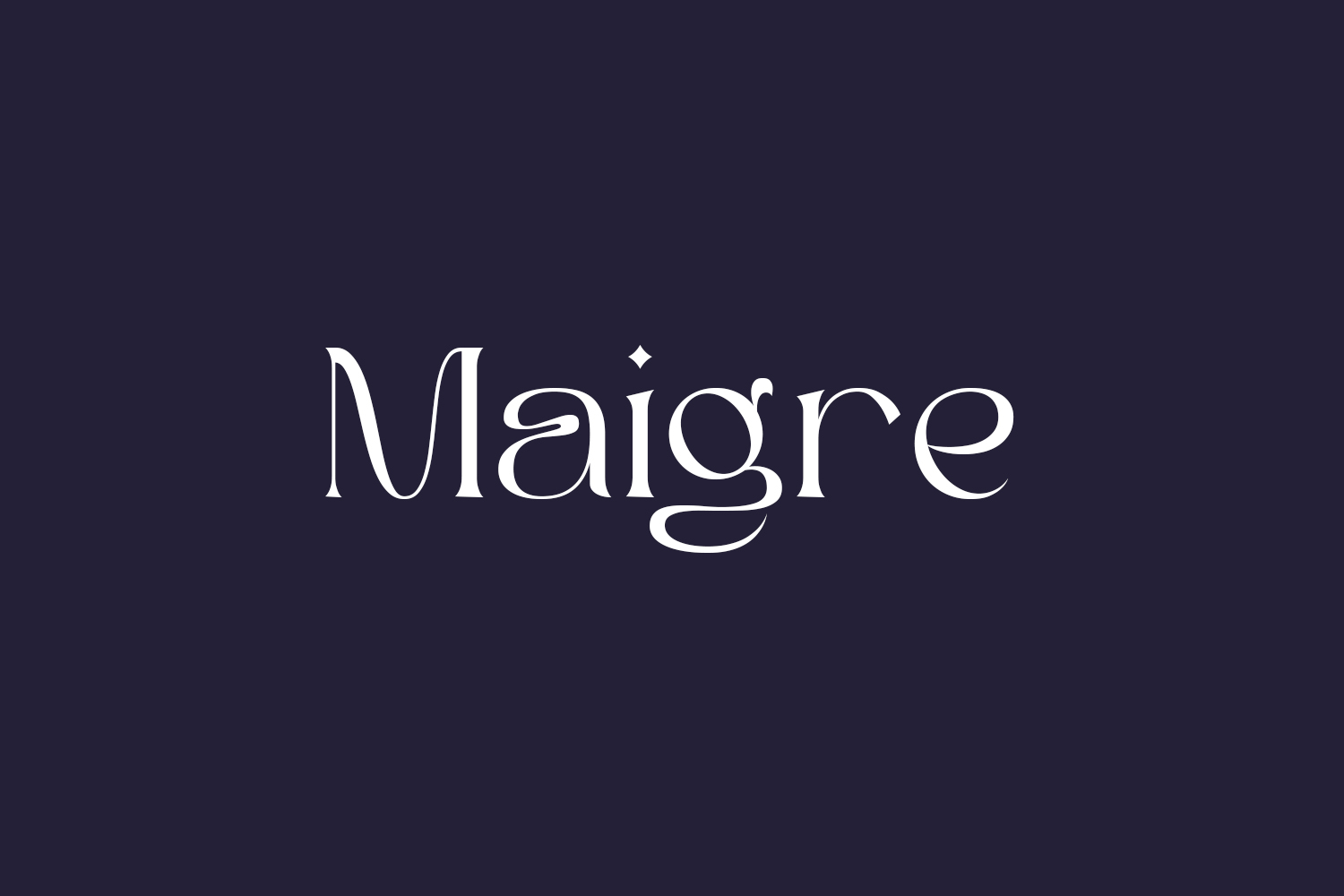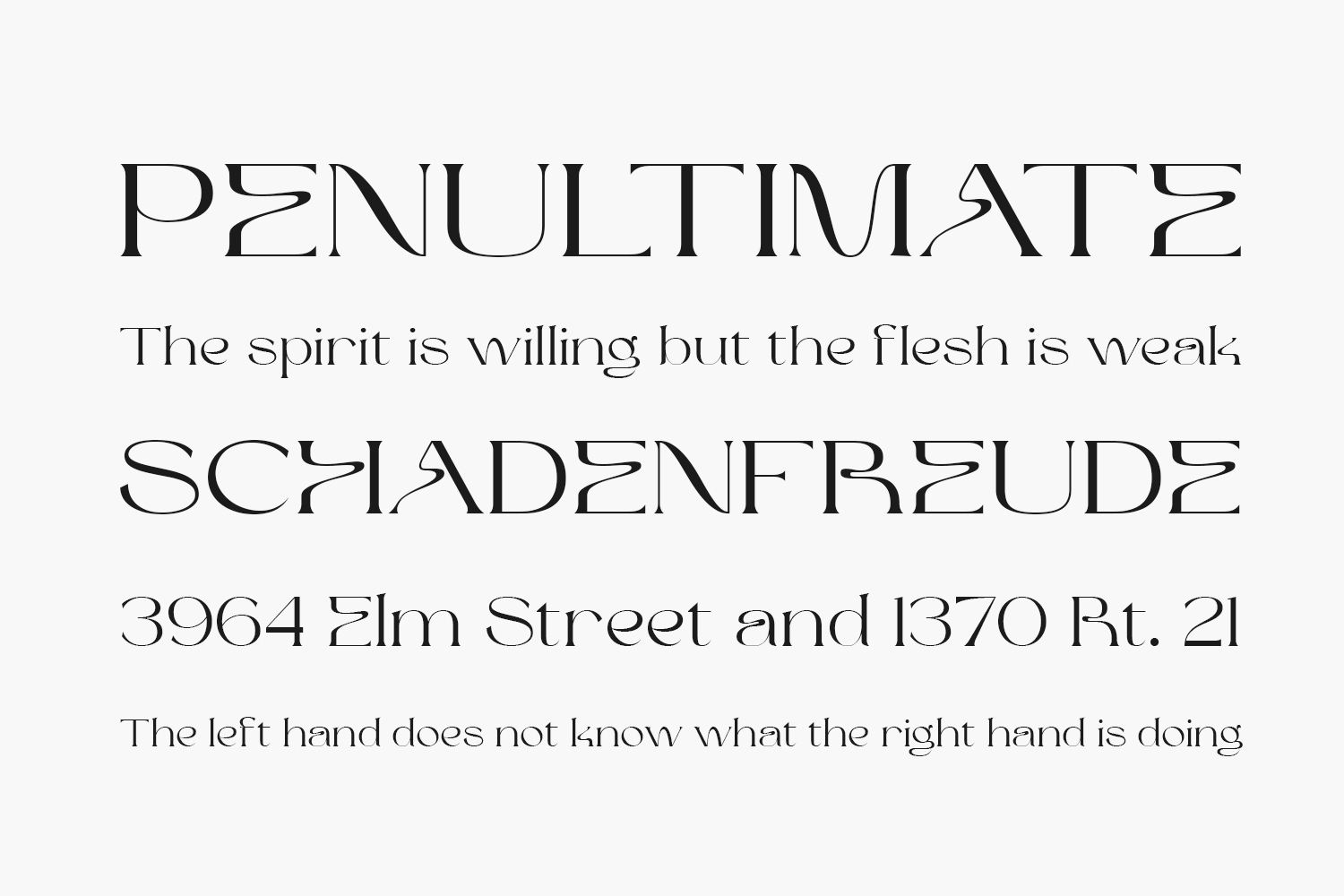
Introducing Maigre Free Font, a sophisticated and timeless serif typeface that embodies modernity, elegance, and class. Whether you’re working on any subject matter, this font is a valuable addition to your library, capable of enhancing any design or creative endeavor. Its versatility knows no bounds, making it an indispensable asset for your font collection. Maigre Free Font is free for personal use only. Please purchase the full version for commercial use.
Designed by Prioritype Co